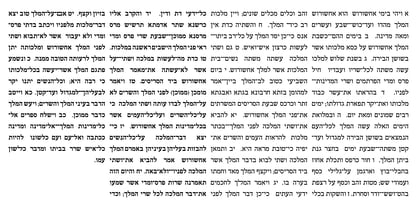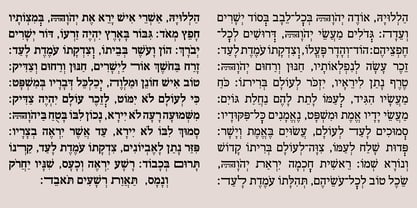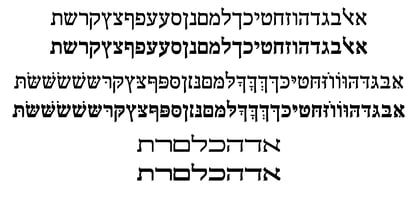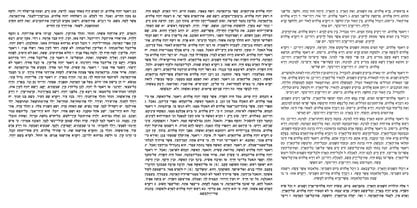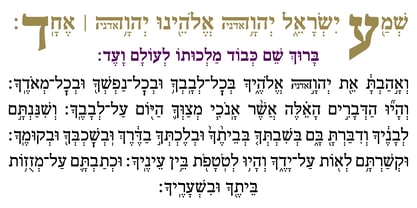
Hebrew Hatikva Tanach
by Samtype
The Hebrew Hatikva Tanach Font Family was designed by Sami Artur Mandelbaum and published by Samtype. Hebrew Hatikva Tanach contains 2 styles and family package options. More about this family
This is a modern, wonderful, and beautiful font.
This font is super readable and can be used from Posters to a Hebrew Bible.
The readability of this font is amazing.
This font has the modern Hebrew punctuation: Shevana, Kamatz Katan, Dagesh Hazak, and Cholam Chaser.